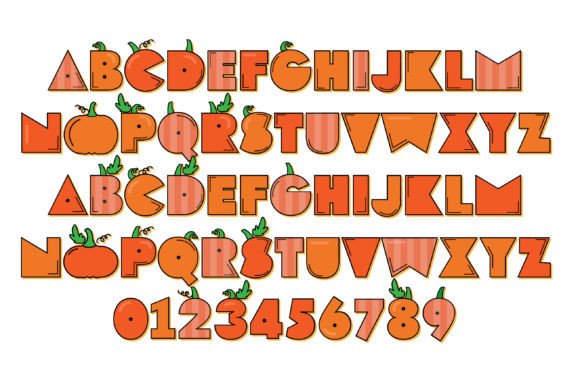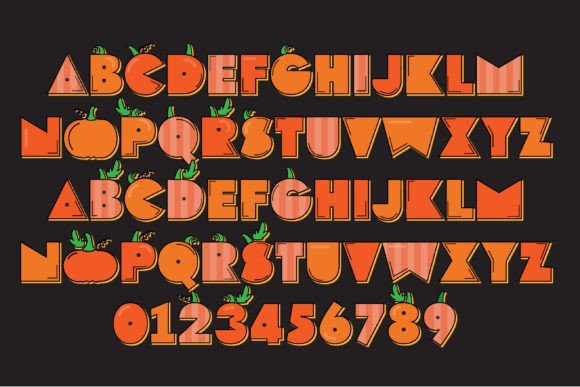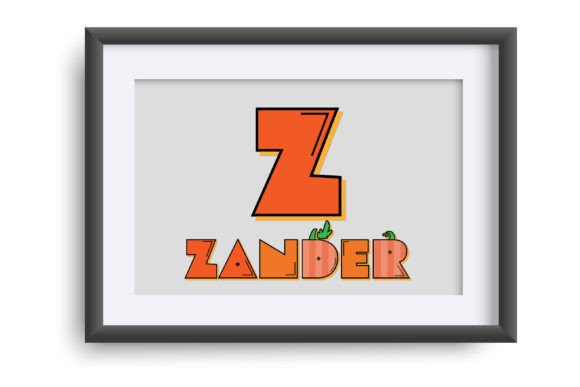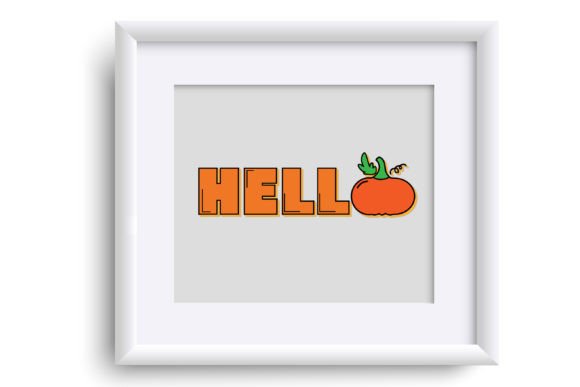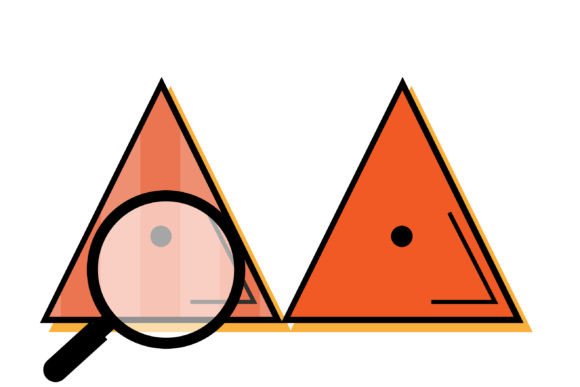
Introduction to Pog Pumpkin Font
Have you ever been working on a creative project and suddenly, the perfect design element pops into your head? For designers, those moments are the best. And today, I’m excited to share with you one of those moments: introducing the Pog Pumpkin Font, a full-color masterpiece that will add a touch of personality to your designs. This vibrant font features pumpkins amidst video-game style lettering, creating a unique and eye-catching effect.
With the Pog Pumpkin Font, you’ll have endless possibilities to create stunning designs, from simple text logos to complex illustrations. Plus, its high-quality vector-based design means it can be scaled to any size without losing its crispness. As a valuable design resource, this font is perfect for designers who want to take their creative projects to the next level.
Pog Pumpkin Font
- High-quality design: This font is crafted with attention to detail, ensuring a high-quality result for any project it’s used in.
- Transparent background: The Pog Pumpkin Font features a transparent background, allowing designers to easily integrate it into their designs without any background distractions.
- Perfect for creative projects: The unique and playful design of the Pog Pumpkin Font makes it an ideal choice for designers working on creative projects, such as illustrations, graphics, and more.
Honest Review: Pog Pumpkin Font
One of the standout features of the Pog Pumpkin Font is its high-quality design. The font has a playful, creative feel that would be perfect for a seasonal project or a fun, lighthearted design.
Here are some things that work well with the Pog Pumpkin Font:
- ✨ Unique and playful design that’s perfect for creative projects
- ✨ High-quality design that’s suitable for print or digital use
- ✨ Transparent background option for added versatility
- ⚠️ Limited character set, which may not be suitable for longer text
- ⚠️ May not be suitable for formal or professional projects
Overall, I think the Pog Pumpkin Font is a great addition to any design resource library. While it may have some limitations, its unique design and high-quality feel make it a great choice for creative projects.
To get the most out of the Pog Pumpkin Font, experiment with different font sizes, colors, and combinations to achieve a unique look. Use the font’s transparent background feature to create stunning designs with depth and dimension.
The Pog Pumpkin Font is ideal for various creative projects, including greeting cards, social media graphics, and event invitations. Its high-quality design makes it a versatile resource for designers and non-designers alike.